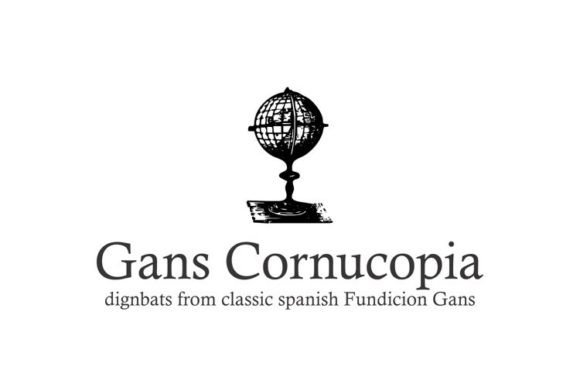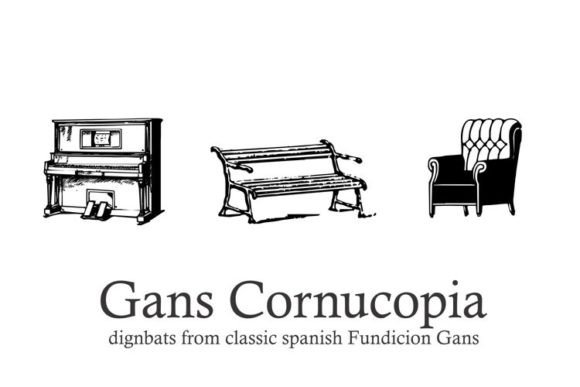
Gans Cornucopia Font: A Timeless Spanish Dingbats Typeface
In the world of typography, few fonts have managed to capture the essence of ornate and decorative design quite like Gans Cornucopia. This classic Spanish Dingbats typeface, originating from Fundicion Gans, has been a treasure trove of artistic and whimsical symbols for designers and crafters alike. With its intricate details and elegant flair, Gans Cornucopia is the perfect addition to any design project that requires a touch of sophistication and whimsy.
The History of Gans Cornucopia
Fundicion Gans, a renowned Spanish type foundry, introduced Gans Cornucopia as part of its extensive collection of typographic offerings. The font’s design is deeply rooted in traditional Spanish typography, with a unique twist that sets it apart from other Dingbats typefaces. Over the years, Gans Cornucopia has become a beloved font among designers, who appreciate its versatility and aesthetic appeal.
Gans Cornucopia is a true masterpiece of typographic design, boasting an impressive array of ornate and decorative elements. The font features a wide range of artistic and whimsical symbols, including intricate borders, elegant flourishes, and charming illustrations. Each glyph is meticulously crafted to add a touch of elegance and flair to any design project.
- Ornate and decorative elements: Gans Cornucopia features an extensive collection of ornate and decorative symbols, perfect for adding a touch of sophistication to your designs.
- Artistic and whimsical symbols: The font includes a wide range of artistic and whimsical symbols, from intricate borders to charming illustrations.
- Elegant and refined: Gans Cornucopia’s design is characterized by its elegant and refined aesthetic, making it perfect for high-end design projects.
- Versatile: The font’s versatility makes it suitable for a wide range of design applications, from branding and packaging to stationery and digital design.
Uses for Gans Cornucopia
Gans Cornucopia’s unique design makes it an excellent choice for a variety of design projects. Here are some ideas to get you started:
Design Applications:
- Branding and packaging: Add a touch of elegance and sophistication to your brand’s packaging and marketing materials.
- Stationery and invitations: Create beautiful and unique stationery, invitations, and greeting cards with Gans Cornucopia’s ornate and decorative elements.
- Digital design: Use Gans Cornucopia to add a touch of whimsy and elegance to your digital designs, from social media graphics to website headers.
- Crafting and DIY projects: Gans Cornucopia is perfect for crafters and DIY enthusiasts, who can use the font to create beautiful and unique projects, such as handmade cards, scrapbooking, and more.
Tips for Using Gans Cornucopia
To get the most out of Gans Cornucopia, here are some tips to keep in mind:
Tips and Tricks:
- Experiment with different sizes: Gans Cornucopia’s ornate and decorative elements can be used at a variety of sizes, from small icons to large display headers.
- Mix and match glyphs: Combine different glyphs to create unique and interesting designs.
- Use with complementary fonts: Pair Gans Cornucopia with complementary fonts to create visually appealing and harmonious designs.
Gans Cornucopia is a timeless Spanish Dingbats typeface that offers a wealth of creative possibilities for designers and crafters. With its ornate and decorative elements, elegant aesthetic, and versatility, this font is perfect for adding a touch of sophistication and whimsy to any design project. Whether you’re working on a branding project, creating digital designs, or crafting handmade projects, Gans Cornucopia is sure to inspire and delight.